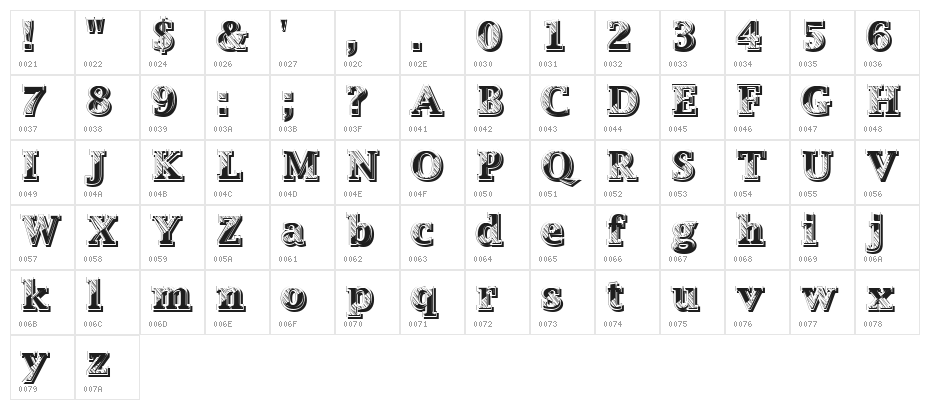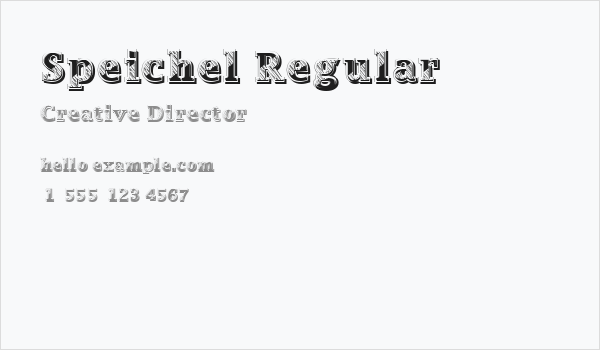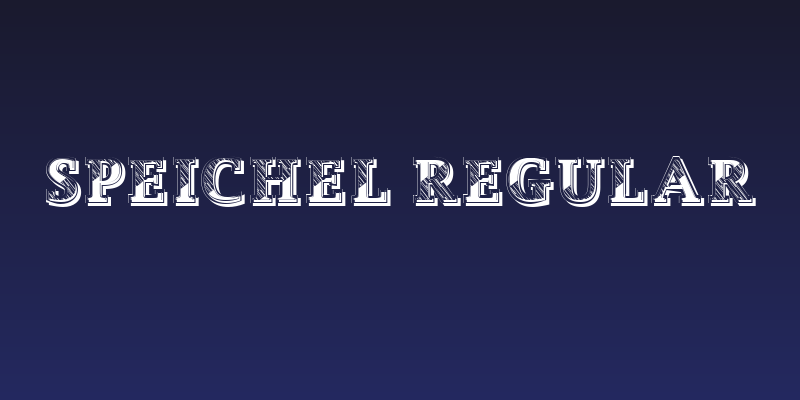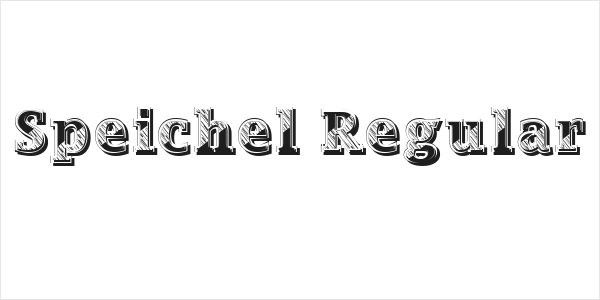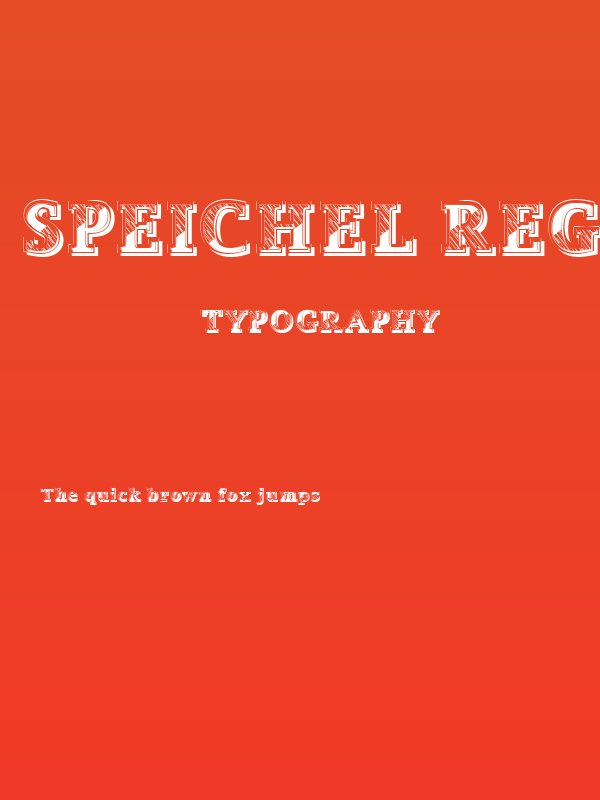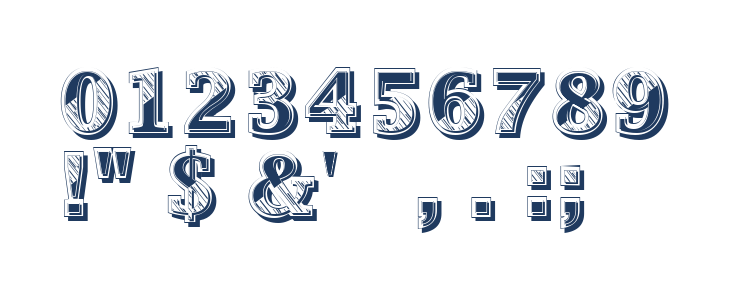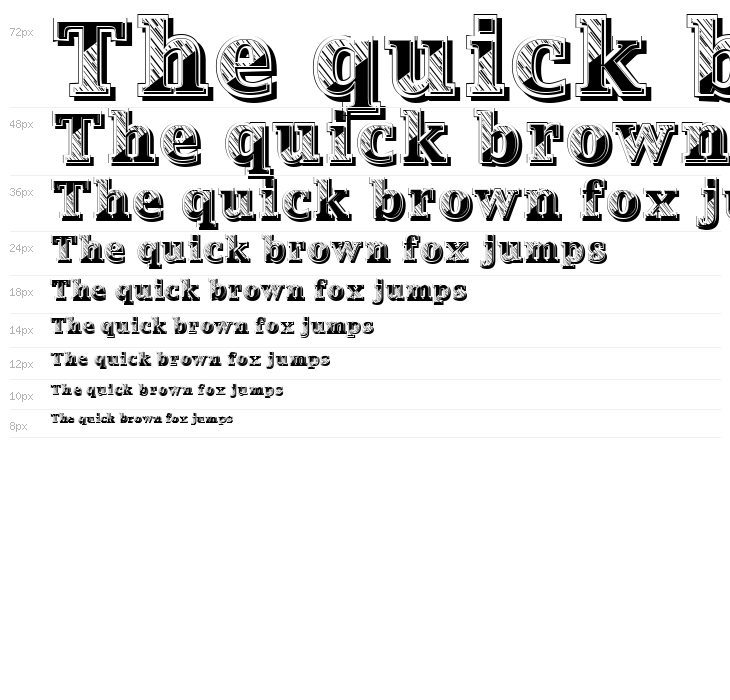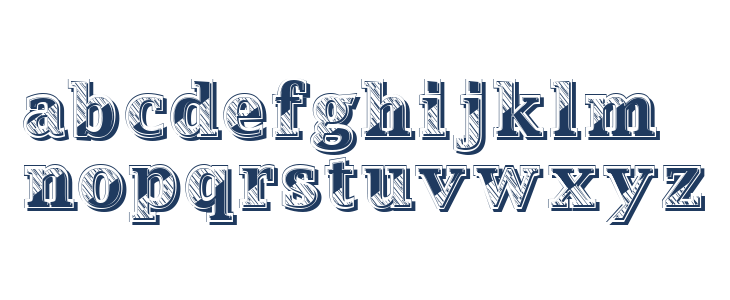
Speichel Regular Font
Speichel Regular Description
This font features a bold and decorative style with a distinct three-dimensional effect. Each character is outlined with a thick black border, filled with intricate line patterns that create a sense of depth and texture. The uppercase and lowercase letters maintain a consistent design, enhancing readability while adding a unique flair. The numerals and special characters follow the same stylistic approach, ensuring uniformity across all glyphs. This font's striking appearance makes it ideal for eye-catching designs.